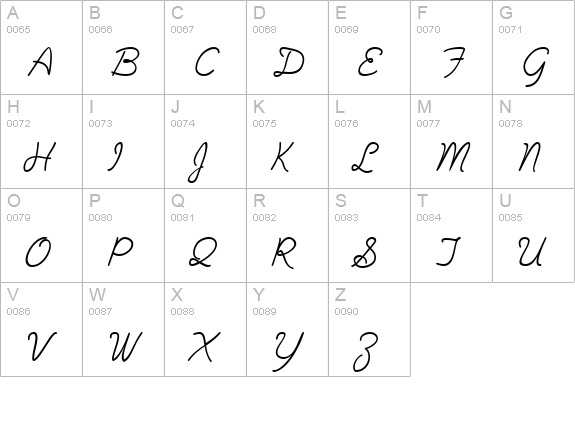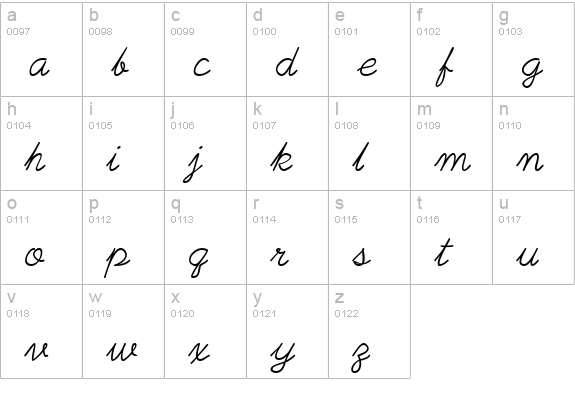
PlainPensle Italic Font Details
PlainPensle Italic is a distinctive, italic variant in the PlainPensle typeface family \xE2\x80\x94 well suited to design and typography projects.
Introducing PlainPensle Italic, a timeless font that effortlessly captures the essence of elegance and sophistication. With its delicate strokes and graceful curves, this font is the epitome of refined beauty. Each letter intricately crafted with precision, PlainPensle Italic exudes a sense of artistry and finesse. This font is not only visually stunning but also incredibly versatile. Whether used for personal or professional projects, PlainPensle Italic adds a touch of class and sophistication to any design. It is perfect for invitations, branding, logos, titles, and so much more. One of the most remarkable features of PlainPensle Italic is that it is freely available for download at FontsMarket.com. This means that you can enjoy the beauty and elegance of this font without any cost. It's a fantastic opportunity to add a touch of luxury to your designs without breaking the bank. The beauty of PlainPensle Italic lies in its ability to effortlessly blend into any design aesthetic. Its timeless appeal makes it suitable for both classic and contemporary projects. Whether you're designing a wedding invitation, creating a modern logo, or working on a vintage-inspired poster, PlainPensle Italic will add that extra touch of sophistication and charm. With its easily readable letterforms, PlainPensle Italic ensures that your message is conveyed with clarity and style. Each character has been meticulously designed to create a harmonious flow, resulting in a font that is not only visually pleasing but also a pleasure to read. So, why wait? Download PlainPensle Italic today from FontsMarket.com and experience the beauty and versatility of this stunning font. Add a touch of elegance to your designs and make a lasting impression with PlainPensle Italic.